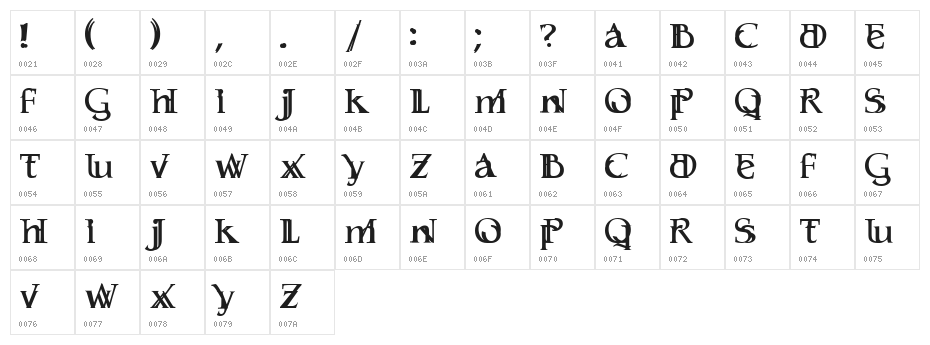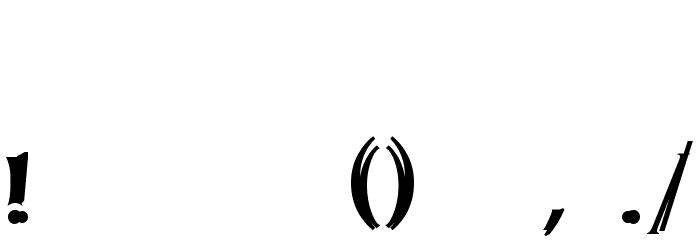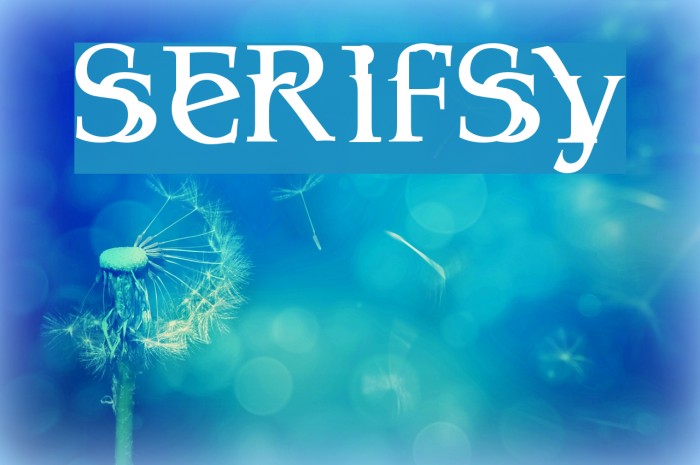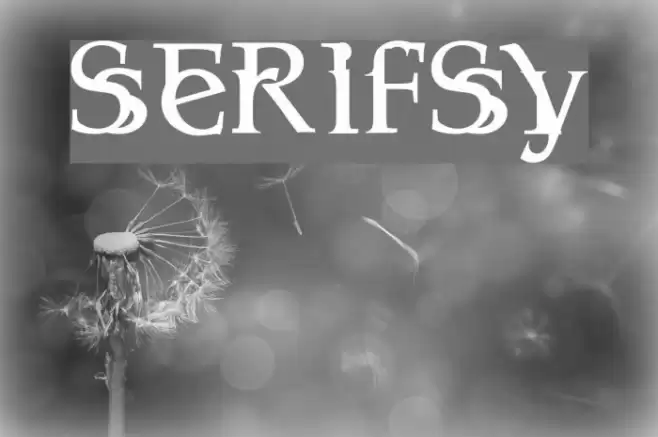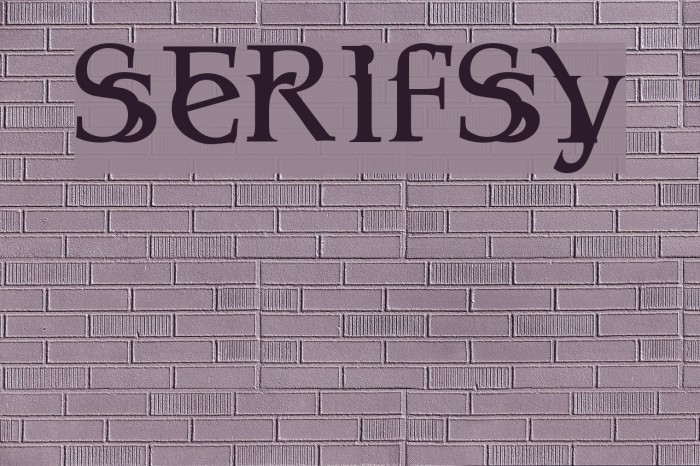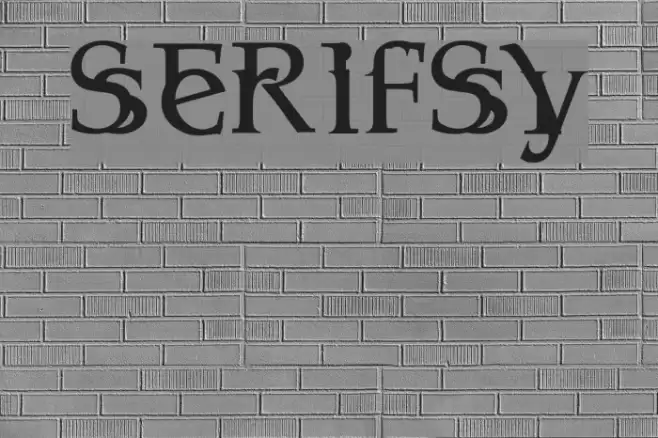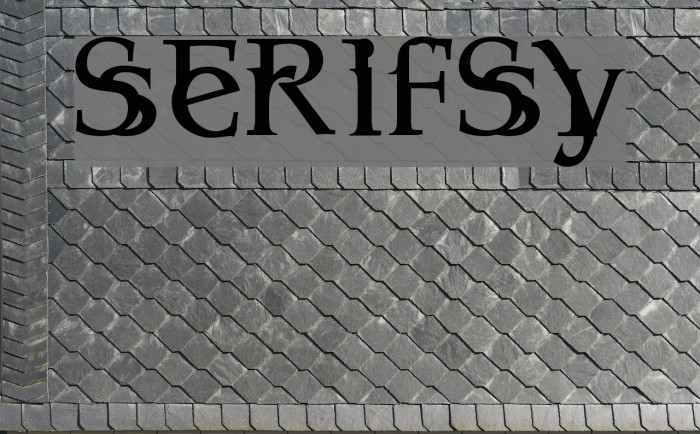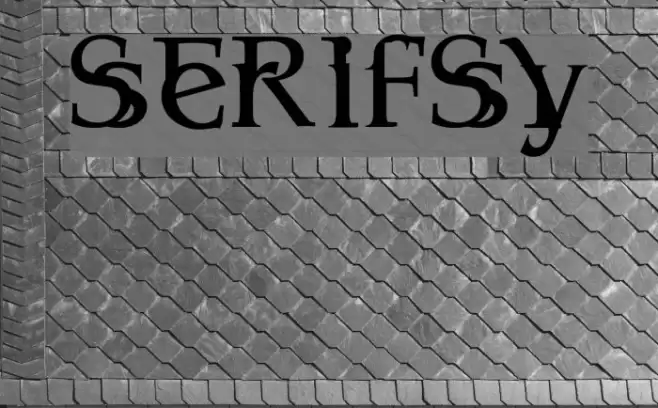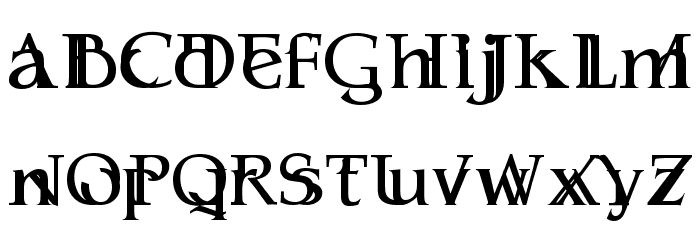
Serifsy Font
Serifsy Description
This font exhibits a bold and dramatic style with a strong presence. It features sharp, angular serifs and a high contrast between thick and thin strokes, giving it a distinctive and authoritative appearance. The uppercase letters are particularly striking, with unique embellishments that add a touch of elegance and flair. The lowercase letters maintain a consistent style, complementing the uppercase with their own subtle details. The numerals and special characters are designed to match the overall aesthetic, ensuring a cohesive look across all text elements. This font is ideal for making a statement and capturing attention.
| Proposed Projects | Ideal for headlines, branding, posters, and any project requiring a strong, impactful typeface. |